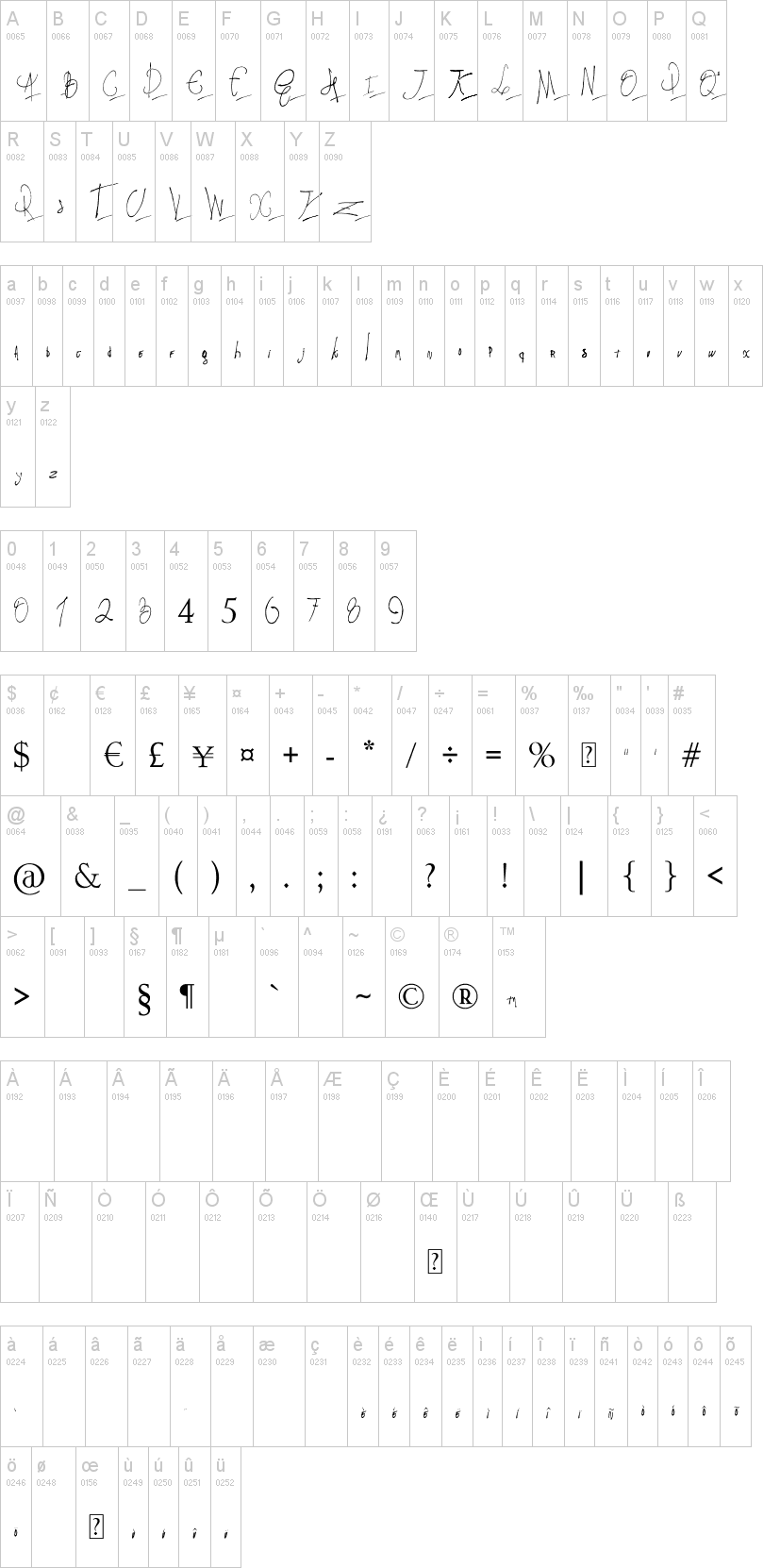
Шрифт Pappo's Blues Band
It is an adaptation of the logo that appears on the album cover of "Pappo's Blues", "Volume 8 - Case Closed" For which I thank Piero Memi, to be the designer of the logo and the cover art of that album ...
Missing some characters (commas, periods, and accented)
Es una adaptación del Logotipo que aparece en la tapa del disco de "Pappo's Blues" : "Volumen 8 - Caso Cerrado"; Por el cual agradezco a Piero Memi, al ser el, él diseñador del logotipo y el arte de tapa del citado disco...
Faltan algunos caracteres (Comas, puntos y Acentuaciones)